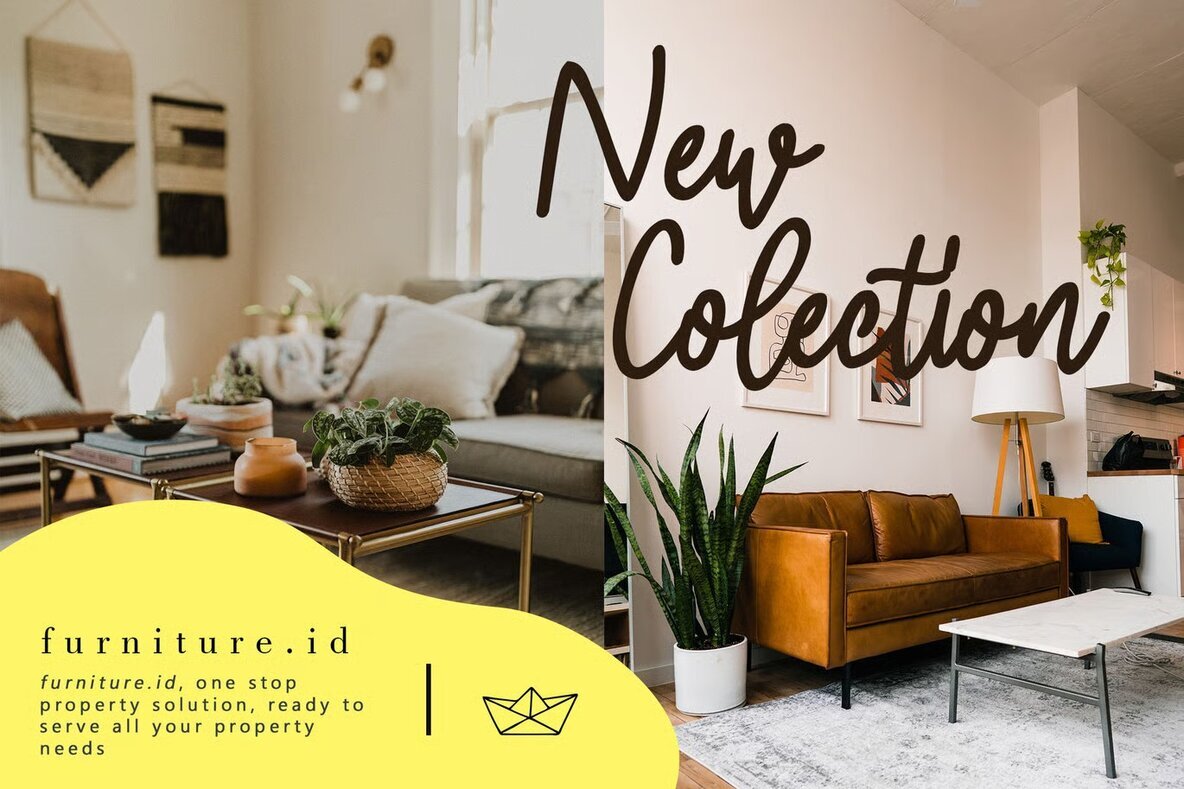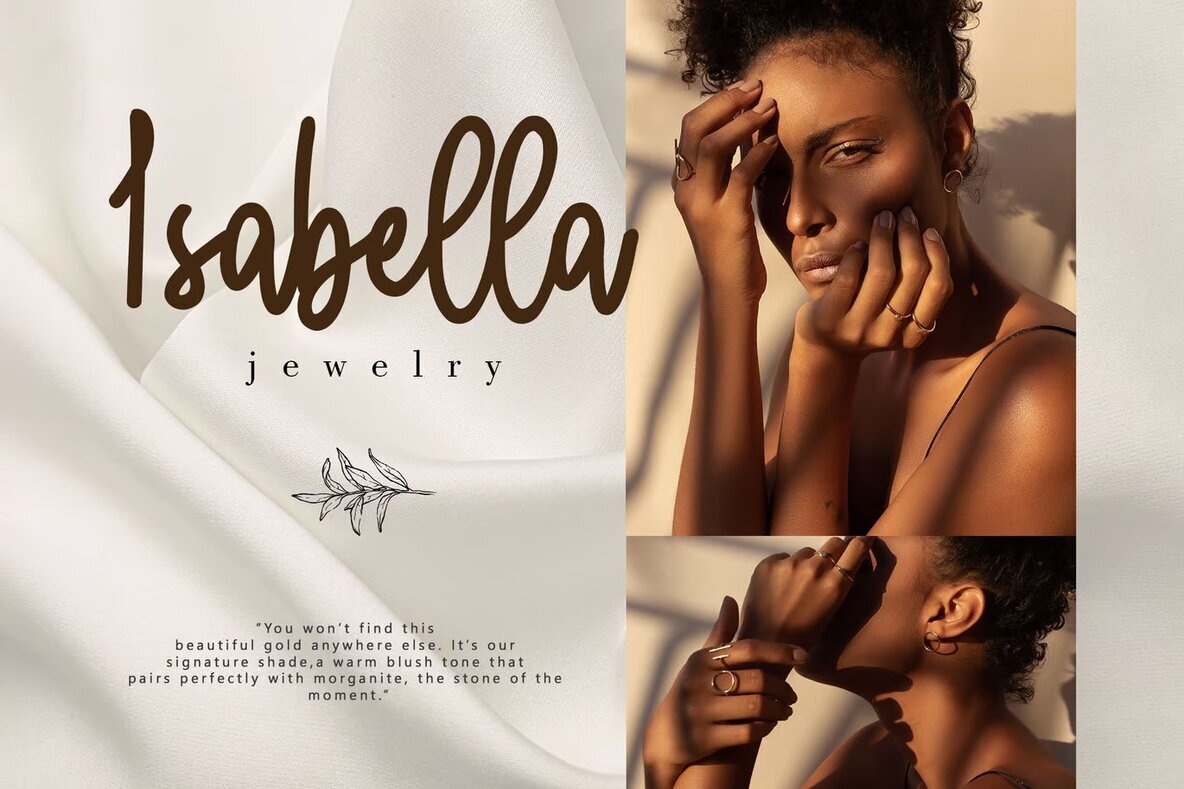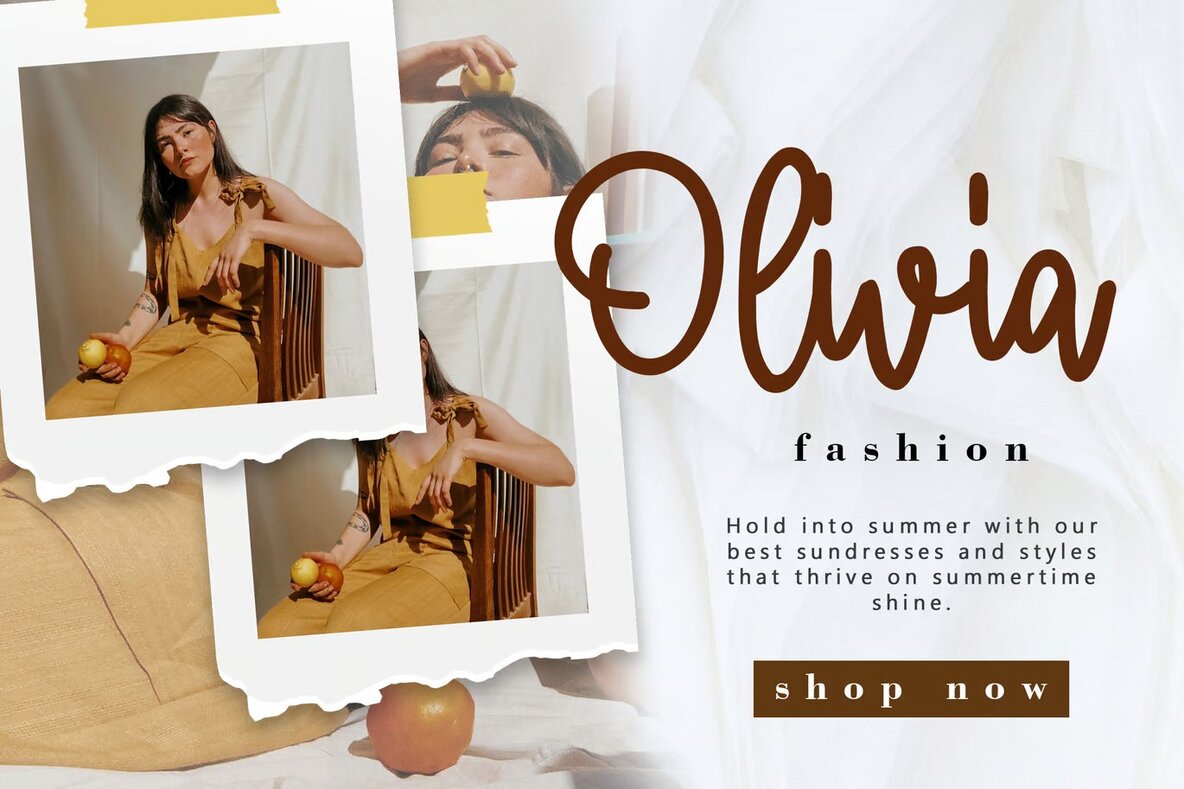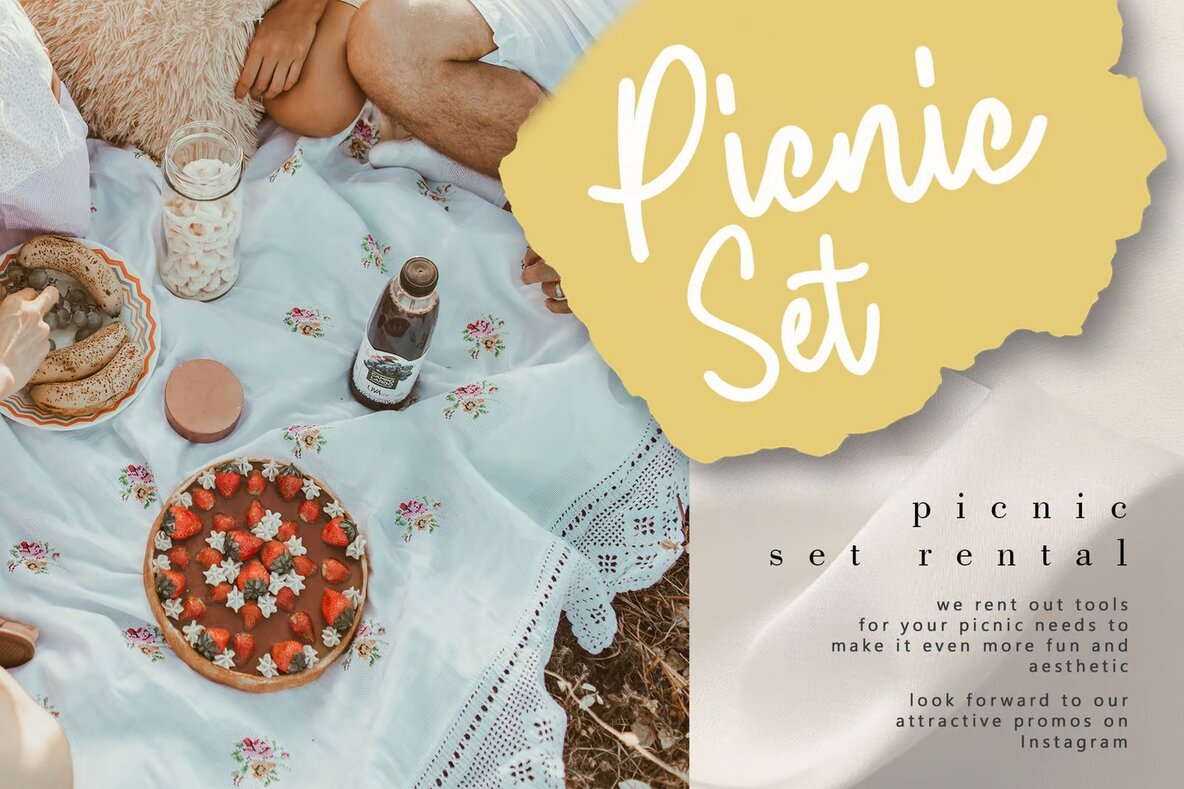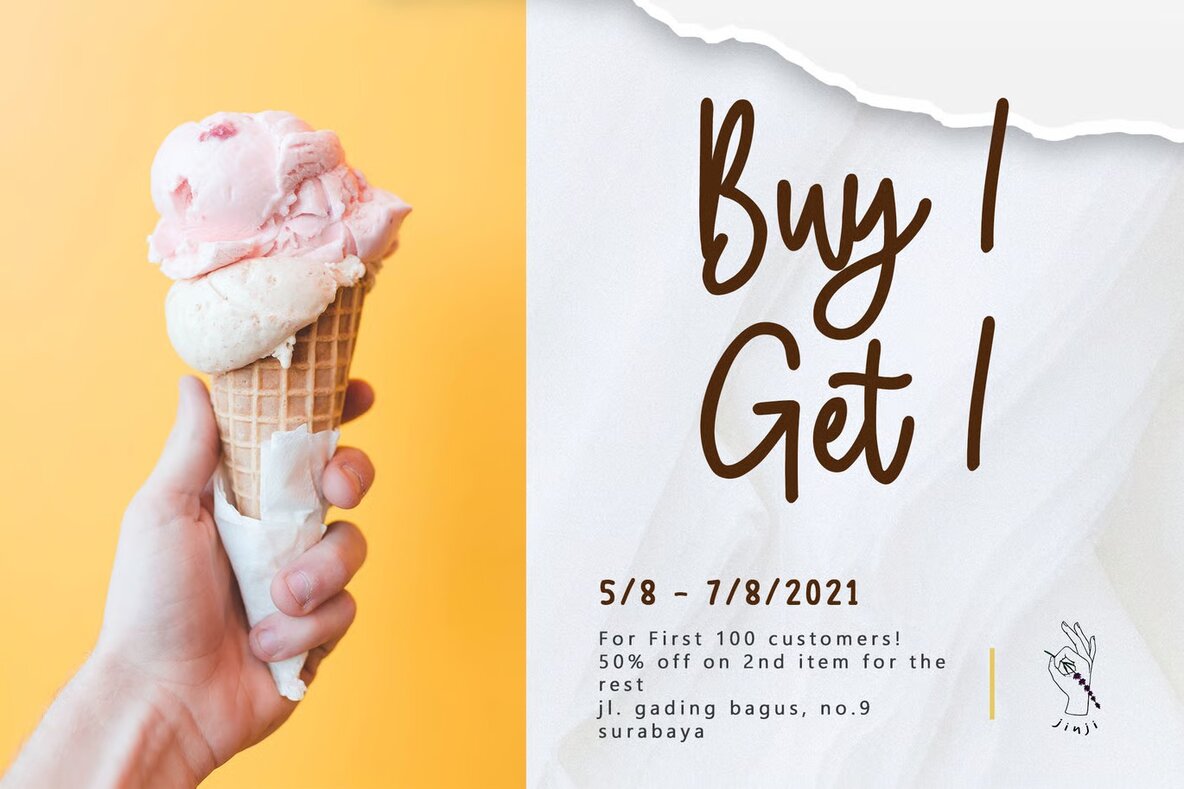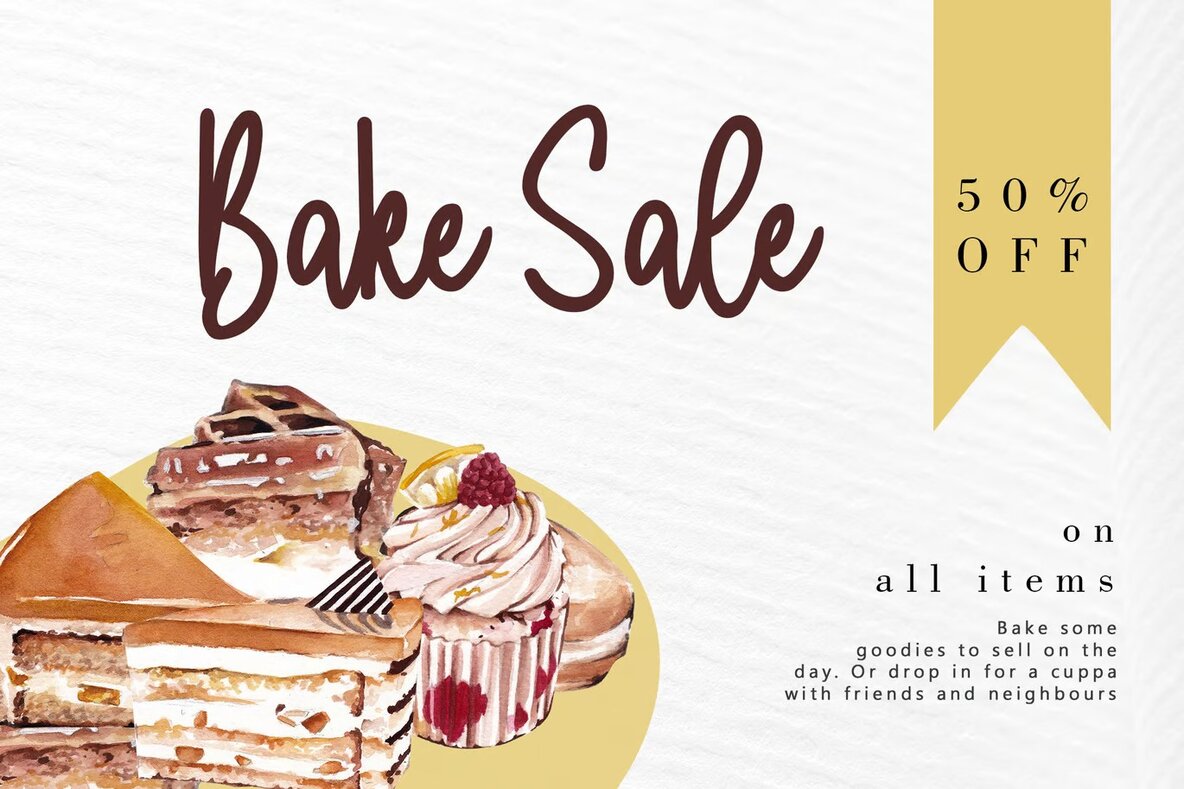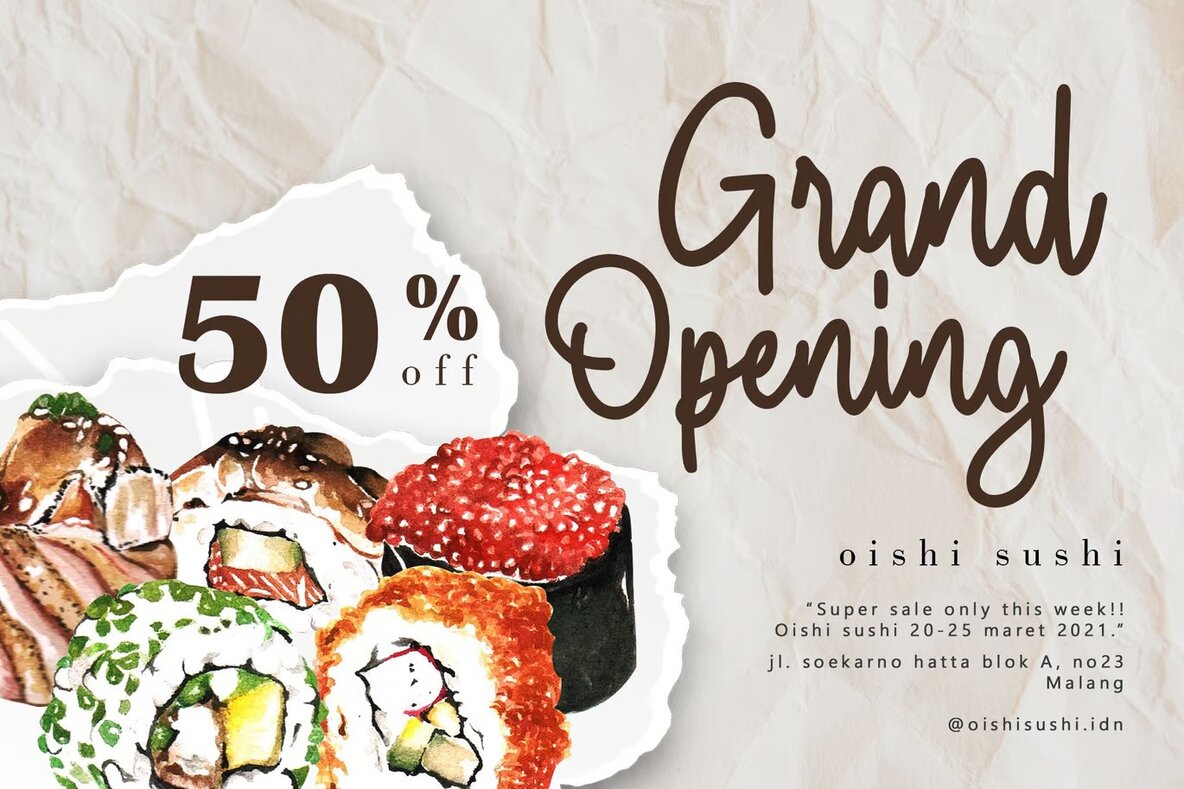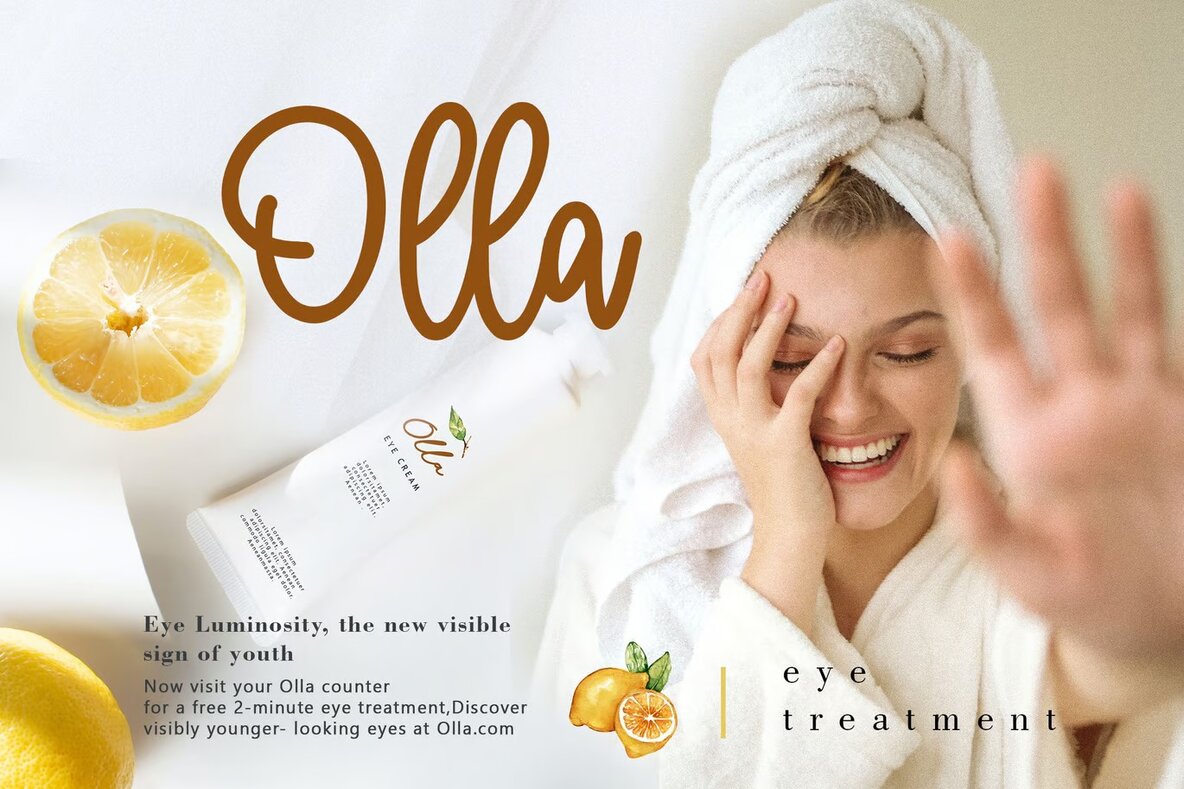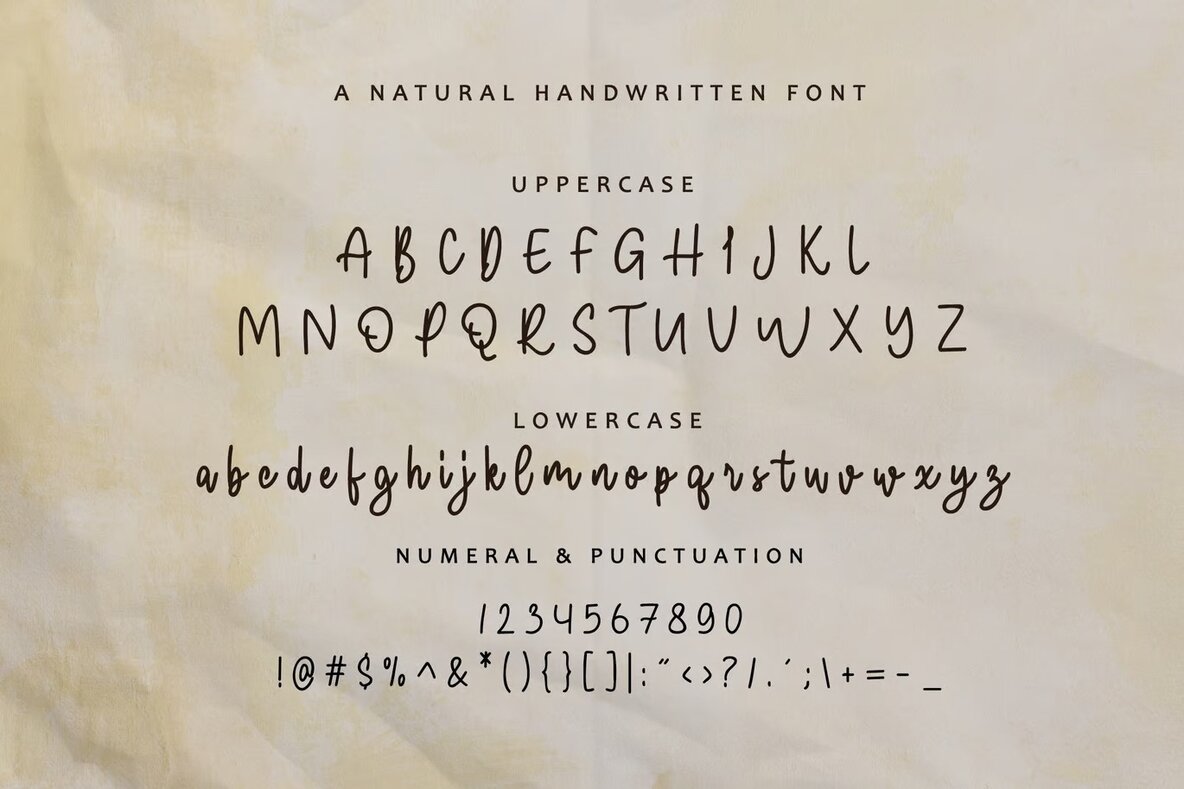
Garden Mosaic Font
Garden Mosaic
Garden Mosaic is a beautifully crafted handwritten monoline script that exudes casual elegance and charm. Its unique flow and natural handwritten style make it ideal for a variety of creative projects. Whether you're working on wedding designs, feminine branding, greeting cards, or modern invitation designs, Garden Mosaic provides the sophistication and distinctiveness you need. It's also perfect for photography branding, stationery design, blog aesthetics, and modern advertising projects.
This fancy signature font can enhance special events like birthdays, or personalize custom products such as mugs, pillows, and t-shirts. Use Garden Mosaic to bring a personal touch to art quotes, home decor, book or cover titles, and any other design projects requiring an elegant handwritten script. Its versatility and graceful look ensure it meets all your signature font needs effortlessly.